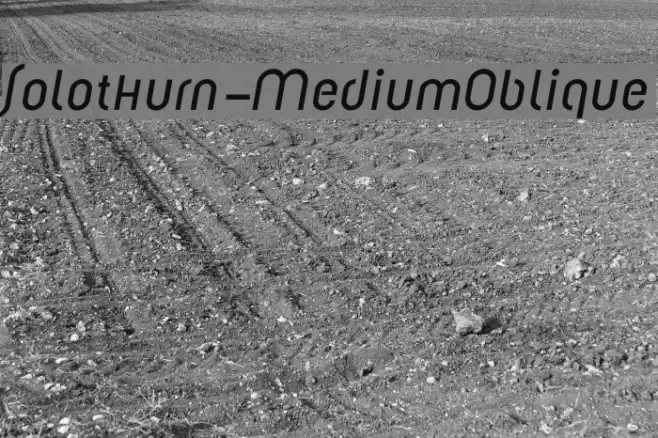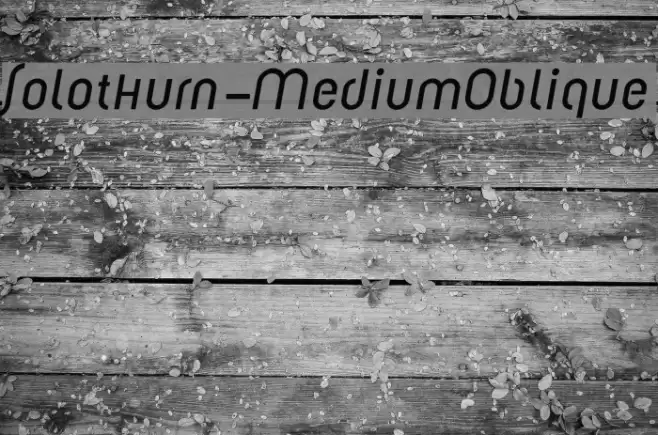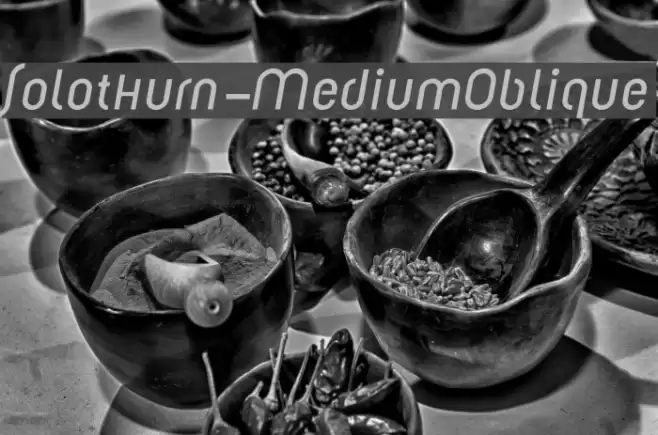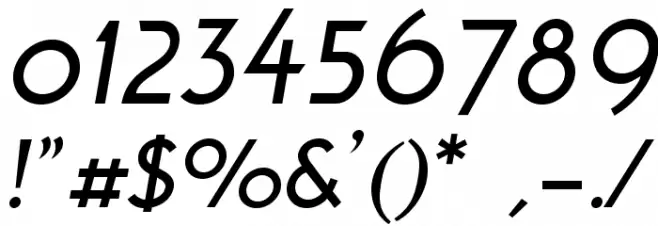
Solothurn-MediumOblique Font
Solothurn-MediumOblique Description
This font presents a sleek and modern aesthetic with its oblique style, offering a dynamic and forward-leaning appearance. The characters are clean and well-defined, featuring a consistent stroke width that provides a uniform look across all glyphs. The rounded edges and smooth curves contribute to its contemporary feel, making it suitable for a variety of design applications. The numerals and special characters maintain the same stylistic approach, ensuring coherence throughout. Its medium weight offers a balanced presence, neither too light nor too bold, making it versatile for both digital and print media.
A modern, oblique font with clean lines and a medium weight from Uncategorized fonts.
- Proposed Projects: Ideal for branding, advertising, and editorial design projects that require a modern and dynamic touch.